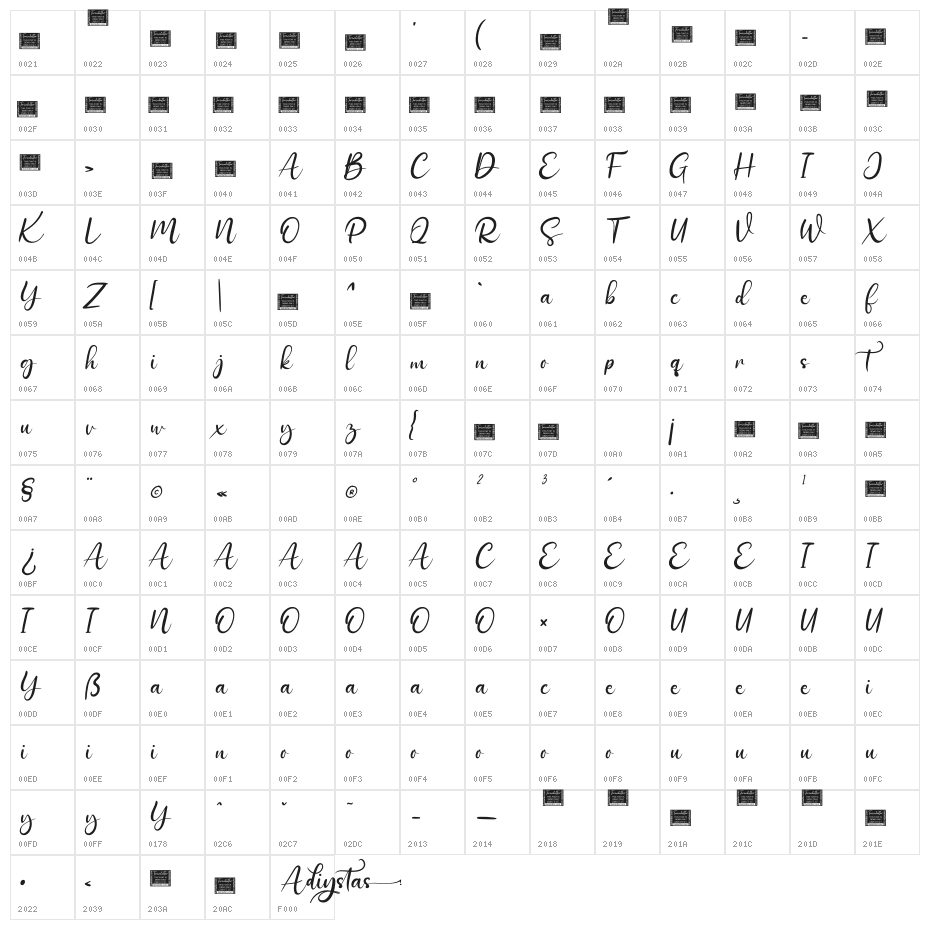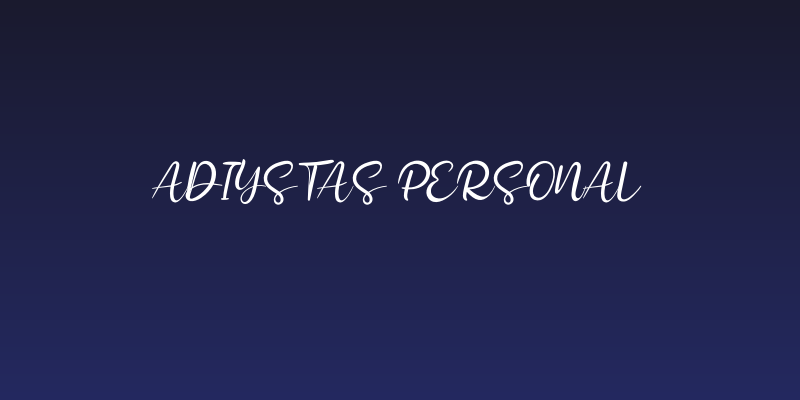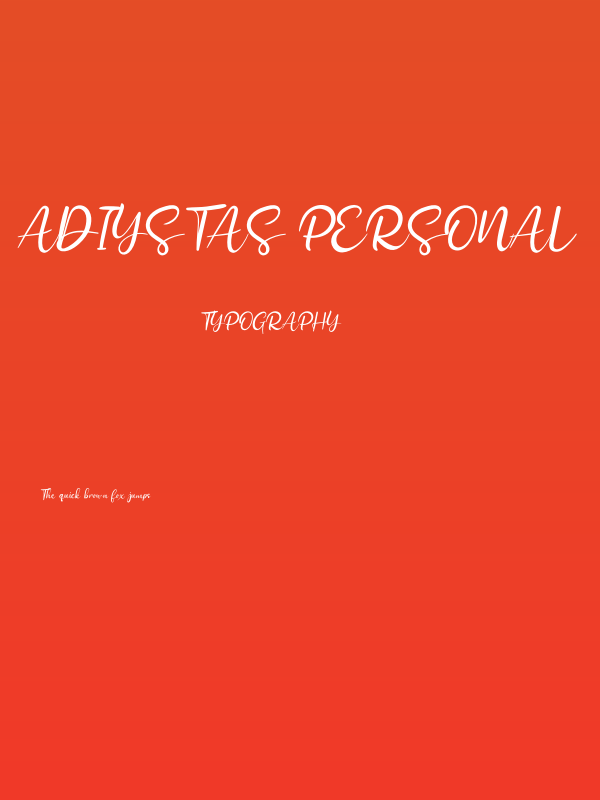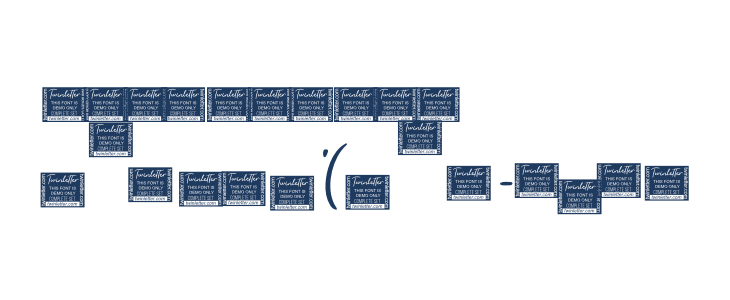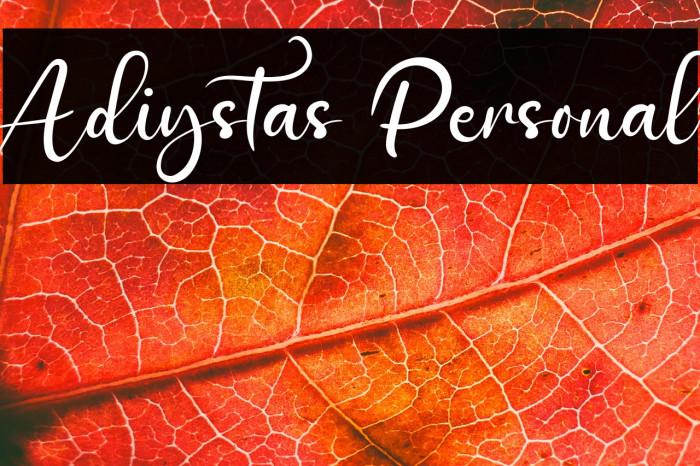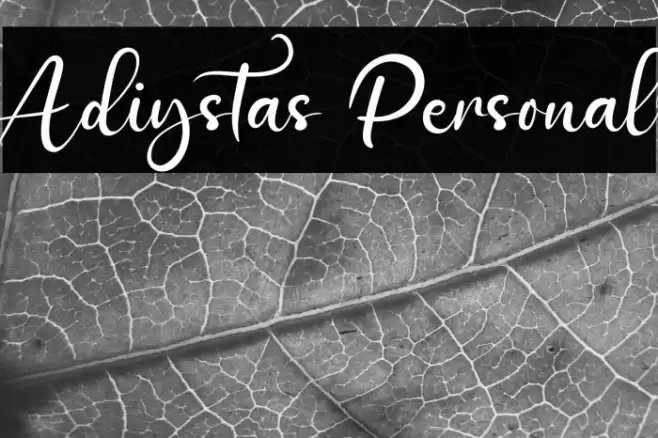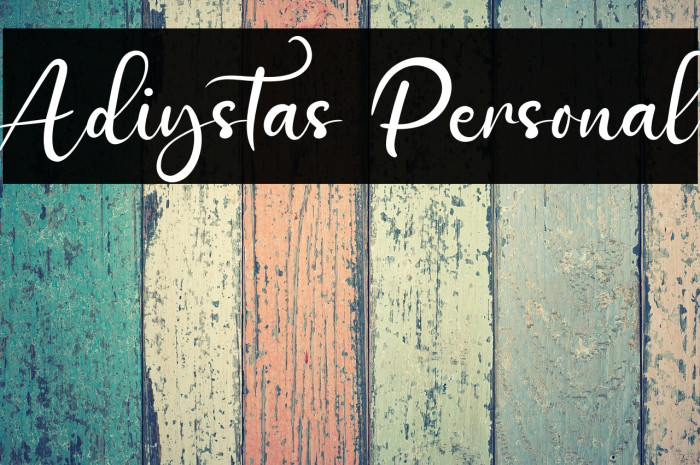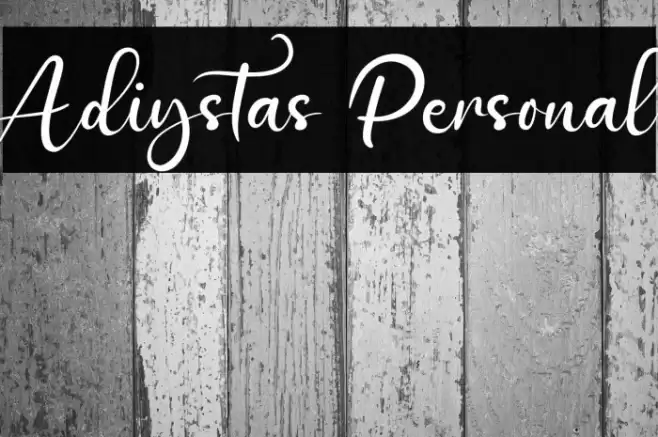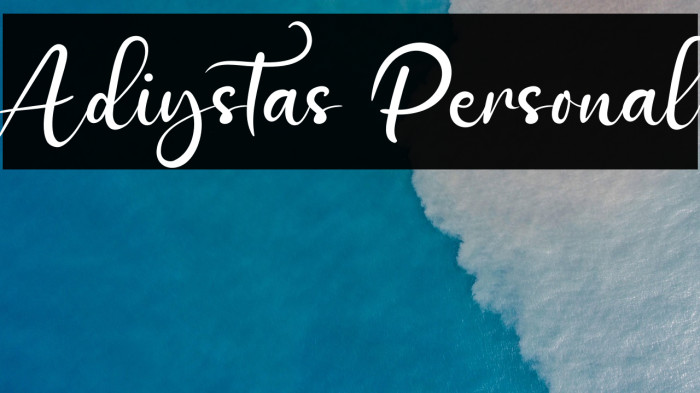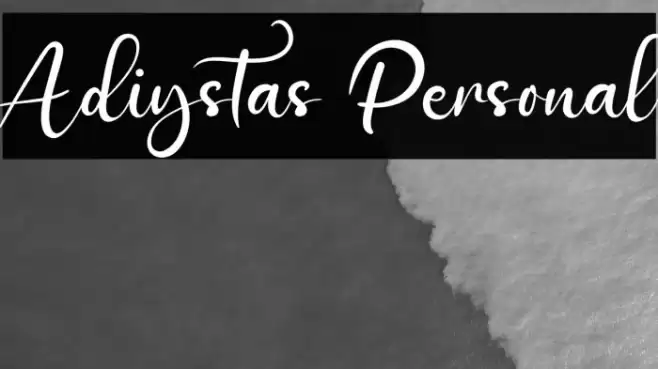
Adiystas Personal Font
This elegant script font features a flowing, handwritten style with a modern twist. The uppercase letters are bold and dynamic, with sweeping curves and a slight slant that adds a sense of motion and grace. The lowercase letters maintain a consistent style, with smooth connections between characters that enhance its cursive nature. The font's overall appearance is both sophisticated and approachable, making it suitable for a variety of design projects. The special characters are seamlessly integrated, maintaining the font's cohesive look.
| Use Case | Logos, Invitations, Social Media |
| Proposed Projects | Ideal for wedding invitations, greeting cards, branding, and social media graphics. |